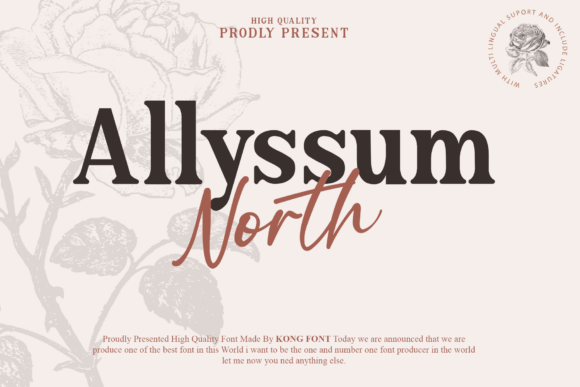
Introducing Allyssum North Font Duo: Elevate Your Designs with Elegance and Creativity
In the world of typography, finding the perfect font duo that combines elegance with creativity can be a daunting task. However, with Allyssum North Font, your search ends here. This stunning pair of fonts is designed to cater to all your design needs, offering a versatile combination of an elegant serif and a modern script font. Whether you’re working on wedding invitations, branding materials, logos, or social media posts, Allyssum North Font Duo is your go-to solution for high-quality, stylish results.
Key Features of Allyssum North Font Duo
- Elegant Serif Font: The serif font in the Allyssum North duo brings a classic, timeless feel to your designs. Its elegant strokes and sophisticated appearance make it perfect for projects that require a touch of luxury and professionalism.
- Modern Script Font: On the other hand, the script font adds a personal, hand-lettered touch to your creations. Its modern and fluid strokes can add a unique charm to your designs, making them stand out from the crowd.
- Versatility: What makes Allyssum North Font Duo truly special is its versatility. You can use them separately for different projects or pair them together for a beautiful balance of contrast and harmony. The combination of serif and script fonts can elevate your designs, adding both sophistication and a creative flair.
- PUA Encoded: Allyssum North Font is PUA encoded, which means you can access all the cute glyphs and swashes with ease. This feature allows for greater flexibility and creativity in your designs, making it easier to customize and personalize your projects.
Ideal for Various Design Applications
Allyssum North Font Duo is not limited to a specific type of project. Its wide range of applications makes it a valuable asset for designers, artists, and anyone looking to create visually appealing content. Here are some of the ideal uses for this font duo:
- Wedding Invitations: Create stunning wedding invitations that set the tone for the big day. The elegant serif font can be used for the main details, while the script font adds a romantic and personal touch.
- Branding Materials: Establish your brand identity with a sophisticated and modern look. Use the serif font for logos and the script font for taglines or promotional materials to create a cohesive and appealing brand image.
- Logos: Design unique and memorable logos that stand out. The combination of serif and script fonts can help you create a logo that is both elegant and creative.
- Social Media Posts: Elevate your social media presence with stylish and engaging posts. The Allyssum North Font Duo can add a touch of sophistication and creativity to your captions and graphics, making them more attractive to your audience.
Tips for Using Allyssum North Font Duo
To make the most out of Allyssum North Font Duo, here are some tips to keep in mind:
- Mix and Match: Experiment with different combinations of the serif and script fonts. You can use them together in a single project or switch between them for different sections.
- Adjust Font Sizes: Play with font sizes to create visual hierarchy and emphasis in your designs. A larger size for headings and a smaller size for body text can make your content more readable and engaging.
- Utilize Swashes and Glyphs: Take advantage of the PUA encoding feature to access a variety of swashes and glyphs. These can add a decorative touch to your designs and make them more personalized.
- Consider Color Schemes: Choose color schemes that complement the elegance and creativity of Allyssum North Font Duo. Soft pastels, metallic tones, or classic black and white can enhance the beauty of your designs.
Why Choose Allyssum North Font Duo?
In a market flooded with font options, Allyssum North Font Duo stands out for several reasons:
- Unique Combination: The pairing of a classic serif font with a modern script font offers a unique combination that can cater to a wide range of design needs.
- High-Quality Design: Allyssum North Font Duo is designed with high-quality in mind. The clear and crisp lines ensure that your designs look professional and polished.
- Easy to Use: With PUA encoding, accessing additional glyphs and swashes is straightforward, making it easy for designers of all levels to use and enjoy.
- Versatility: Whether you’re working on digital projects or print materials, Allyssum North Font Duo can adapt to any medium, ensuring consistency and quality across all your designs.
Allyssum North Font Duo is a game-changer for designers and creatives looking for a versatile, elegant, and modern typography solution. Its combination of a classic serif font and a contemporary script font offers endless possibilities for a wide range of projects. With its PUA encoding for easy access to glyphs and swashes, high-quality design, and adaptability to various design applications, Allyssum North Font Duo is an excellent addition to any designer’s toolkit. Elevate your designs with the elegance and creativity that Allyssum North Font Duo has to offer.